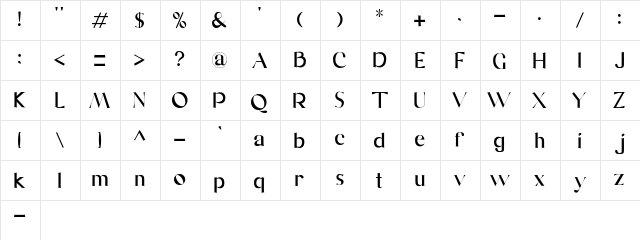
Calrida Regular
| Designer | Muksal Craeative. 2020 |
Design Context for Calrida Typeface
Calrida offers clean, dependable letterforms without strong stylistic allegiance, making it a practical choice for designers who need flexibility.